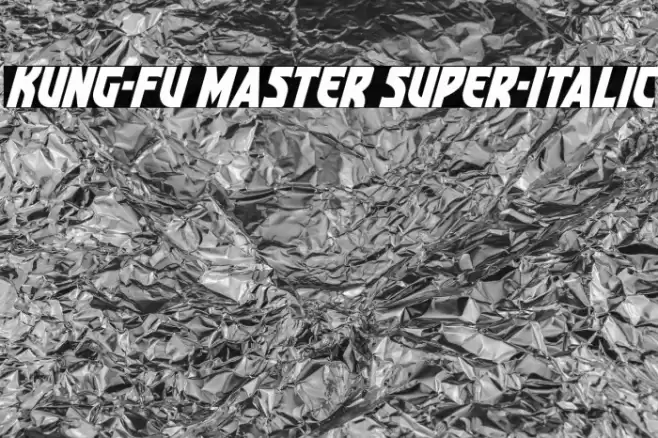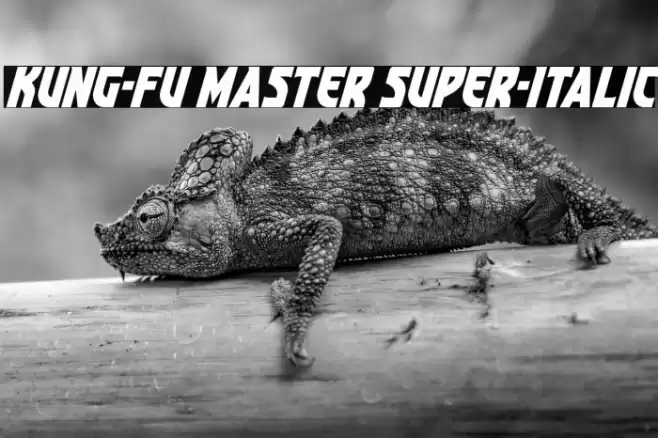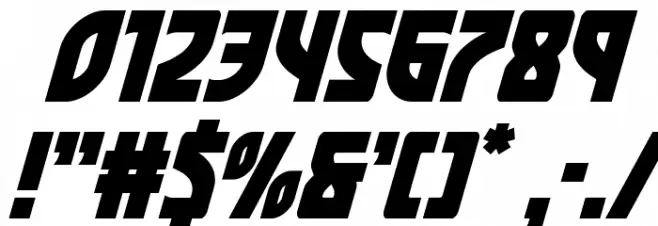
Kung-Fu Master Super-Italic Font
Kung-Fu Master Super-Italic Description
This dynamic and bold typeface features a strong, angular design with a pronounced italic slant, giving it a sense of motion and energy. The characters are robust and impactful, with sharp edges and a slightly condensed form that enhances its striking appearance. The uppercase and lowercase letters maintain a consistent style, while the numerals and special characters complement the overall aesthetic. This font's unique style makes it ideal for projects that require a bold statement or a sense of action and excitement.
A bold, angular, and italic typeface with a dynamic and energetic style from Uncategorized fonts.
- Proposed Projects: Ideal for action-themed posters, video game titles, sports branding, and dynamic advertising campaigns.